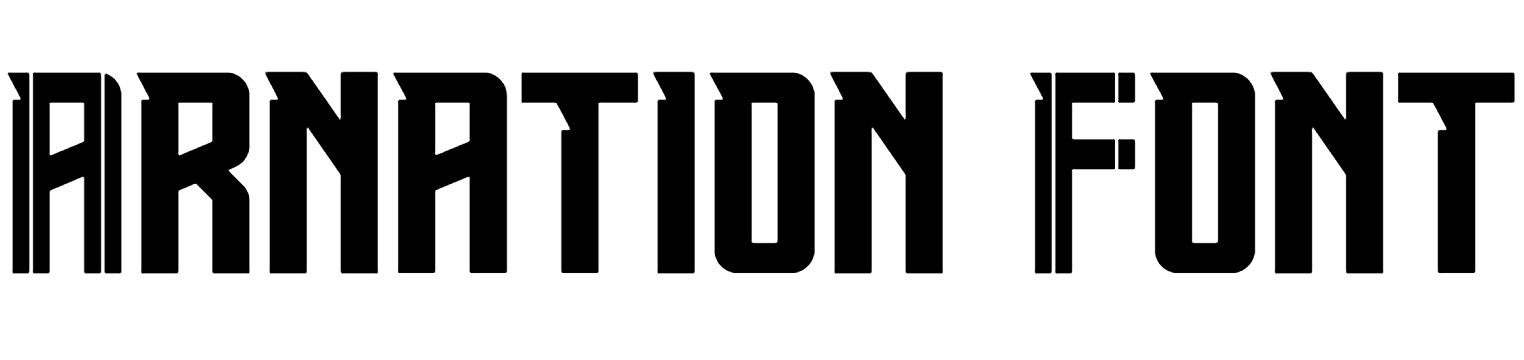
Arnation
Arnation is a fancy font created by typefactory. It's a decorative display font with plenty of personality, made to grab attention. It's a free download, and you can try it with your own text in the preview above first.
What You Can Type With Arnation
You get every letter from A to Z in both cases and all the numbers from 0 to 9, which means Arnation can handle full sentences, dates and prices. Everyday marks like &, !, ? and @ are there too. There are no accented letters like é or ñ, so it's best kept to English text.
Ligatures and Smart Letters in Arnation
Where Arnation Works Best
Think of Arnation for posters, logos and eye-catching headlines. Use it for one standout word or headline and let simpler fonts handle the rest.
Does Arnation have ligatures?
Yes. Arnation has ligatures that turn on by themselves in most design apps and browsers, so you don't need to do anything special.
Does Arnation support accented letters?
No. Arnation has no accented letters such as é, ñ or ü, so it's best for English text.